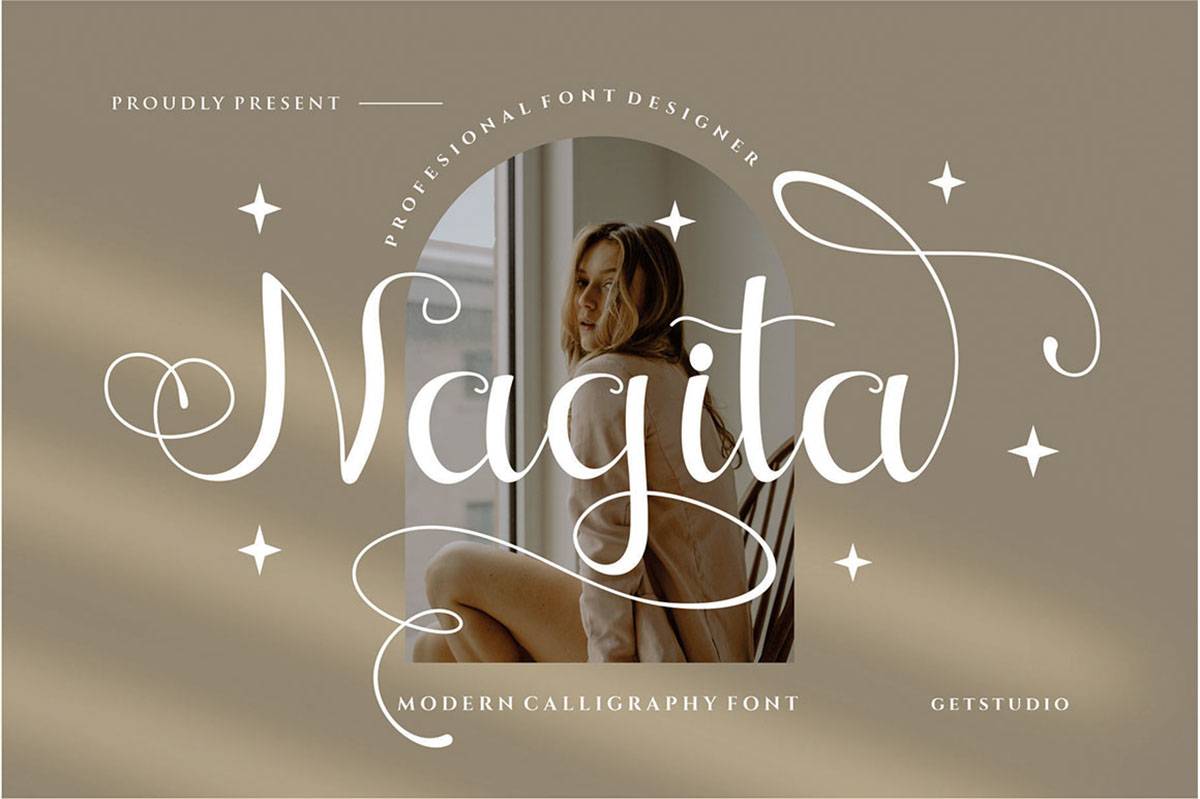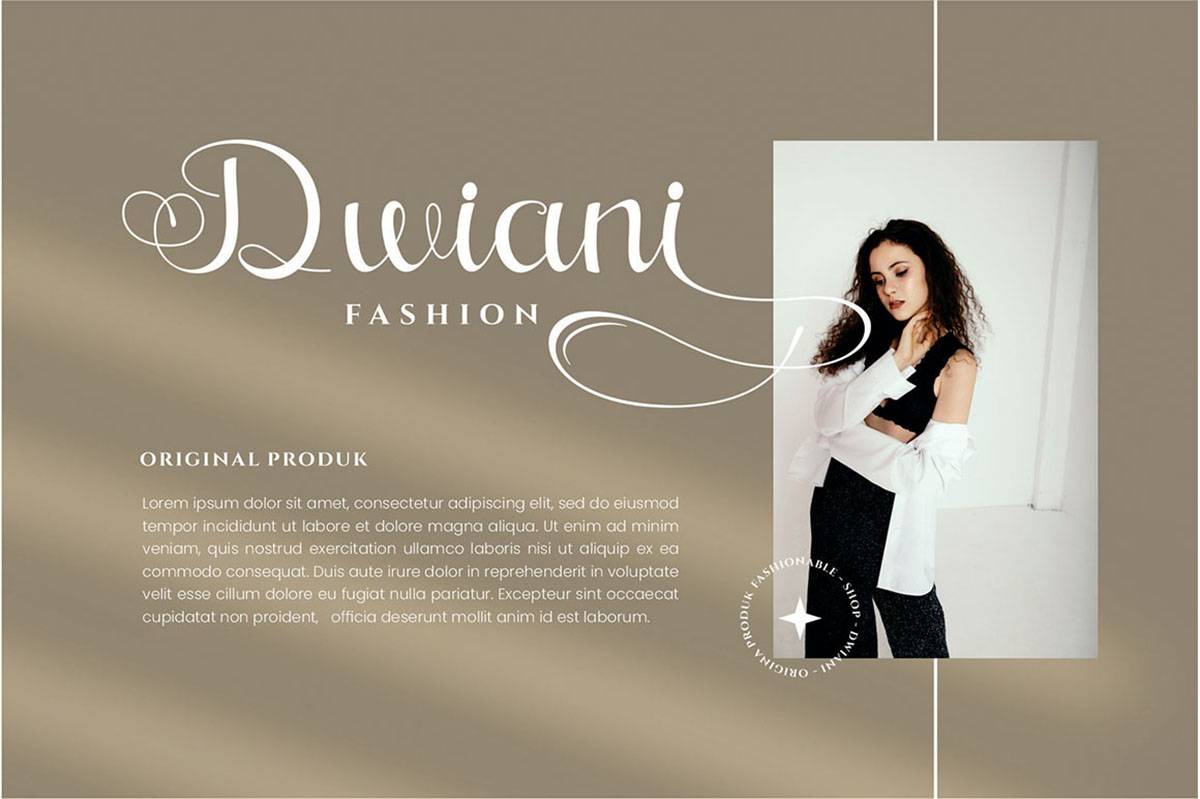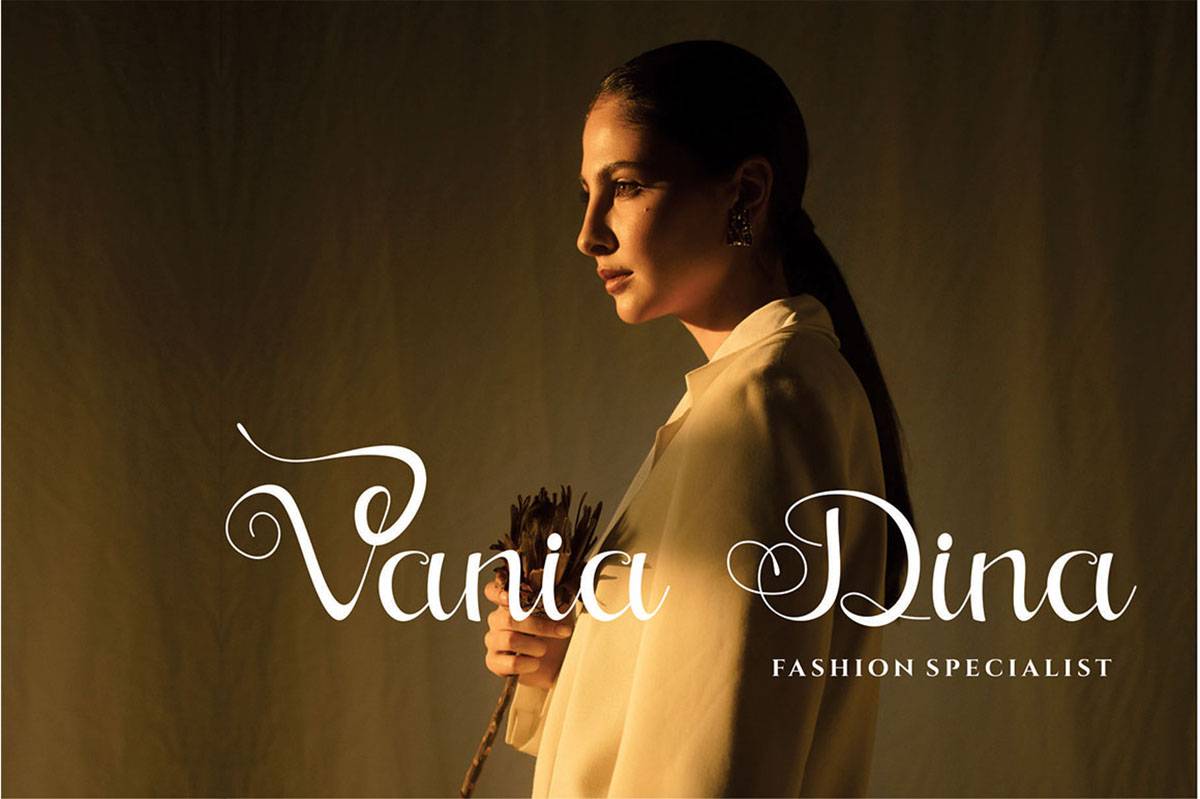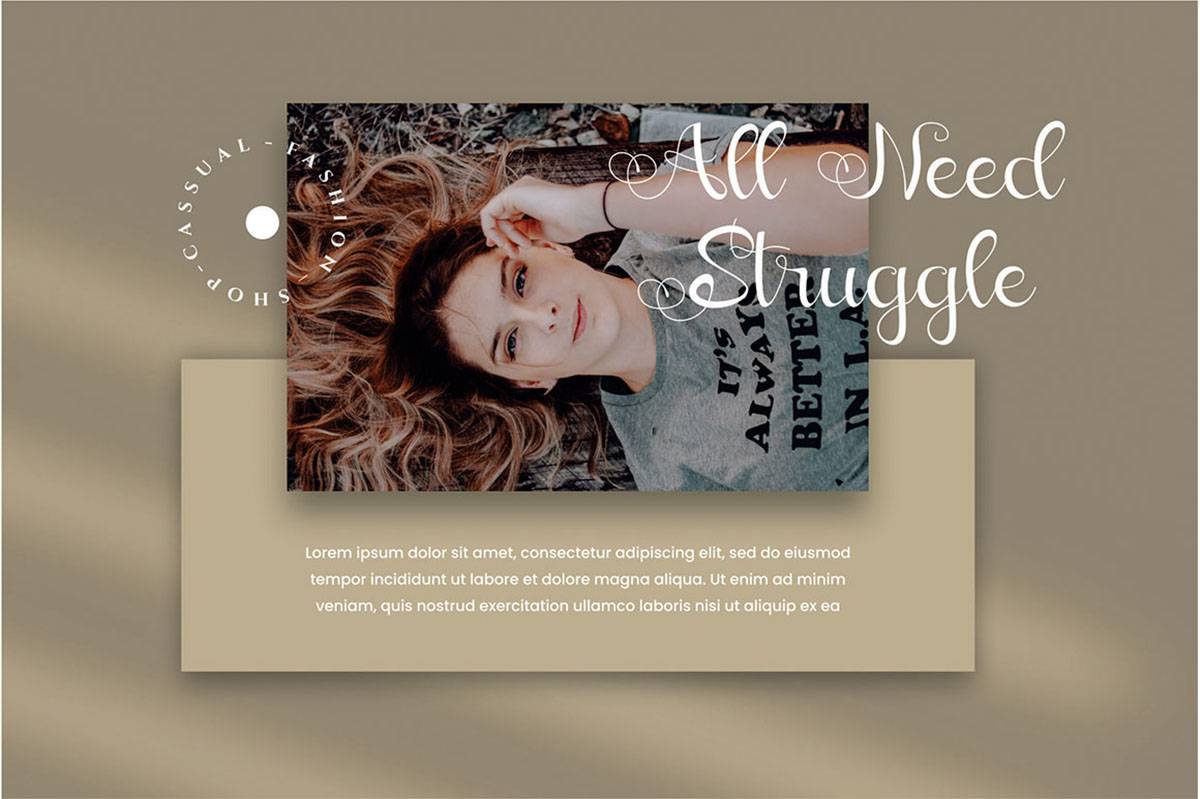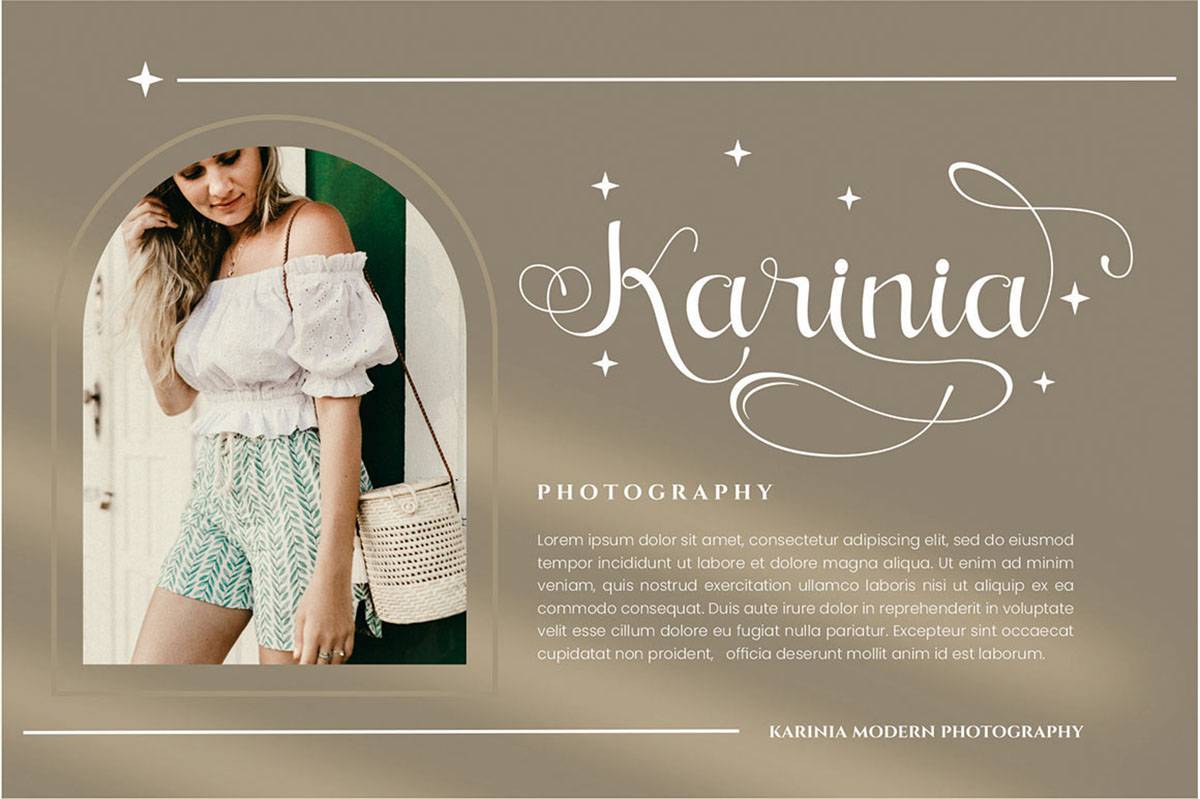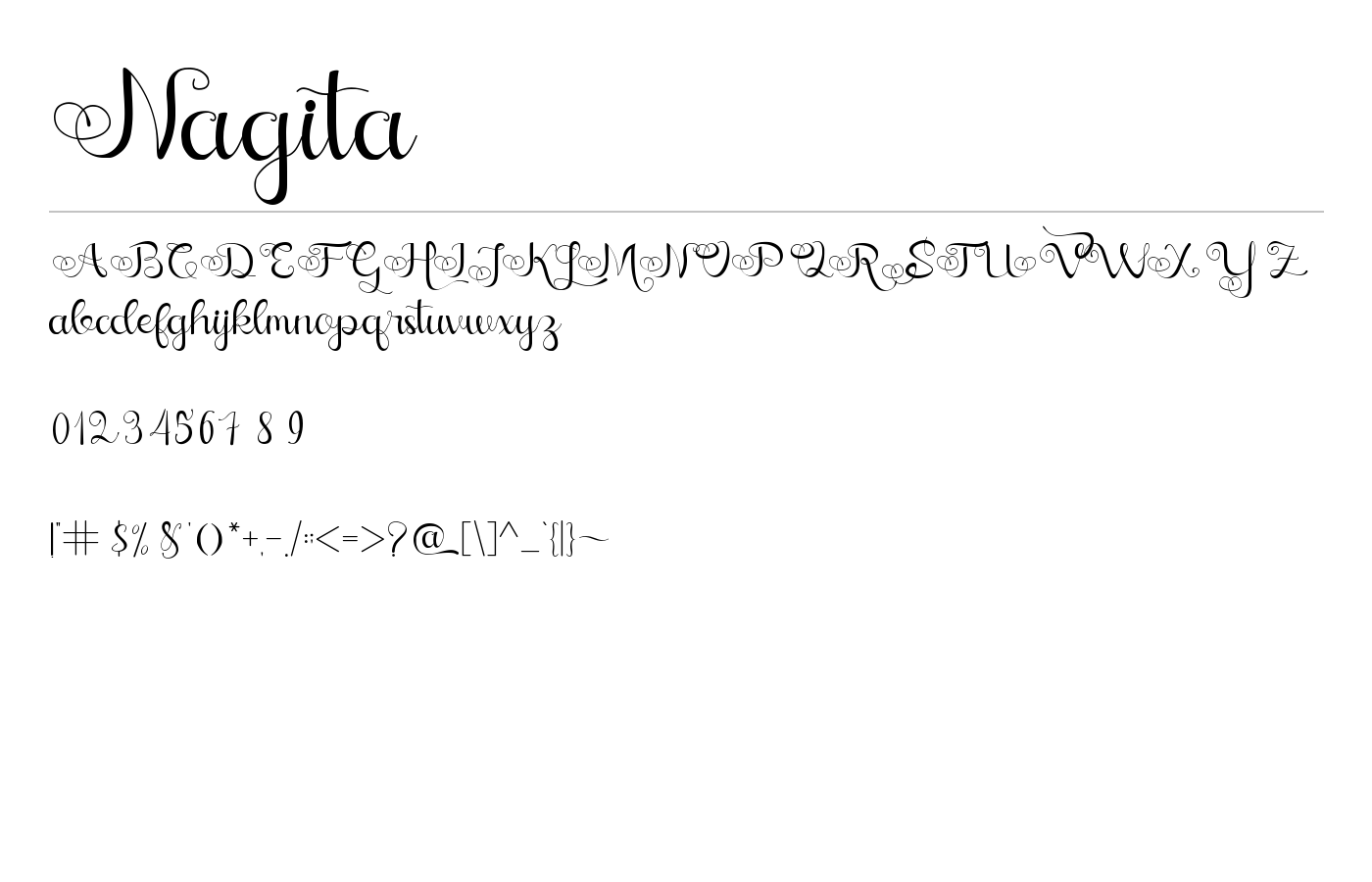
Nagita is an elegant script font characterized by its delicate, flowing letterforms and intricate swashes, especially in the uppercase set. With its fine strokes and graceful curves, it conveys a refined, romantic feel ideal for invitations, luxury branding, and feminine design projects. This font works beautifully in display uses where its decorative details can shine, adding a touch of sophistication and charm.
| Font family | Nagita Font |
| Release date | 2021-09-24 |
| Designer | Getstudio 2021 |